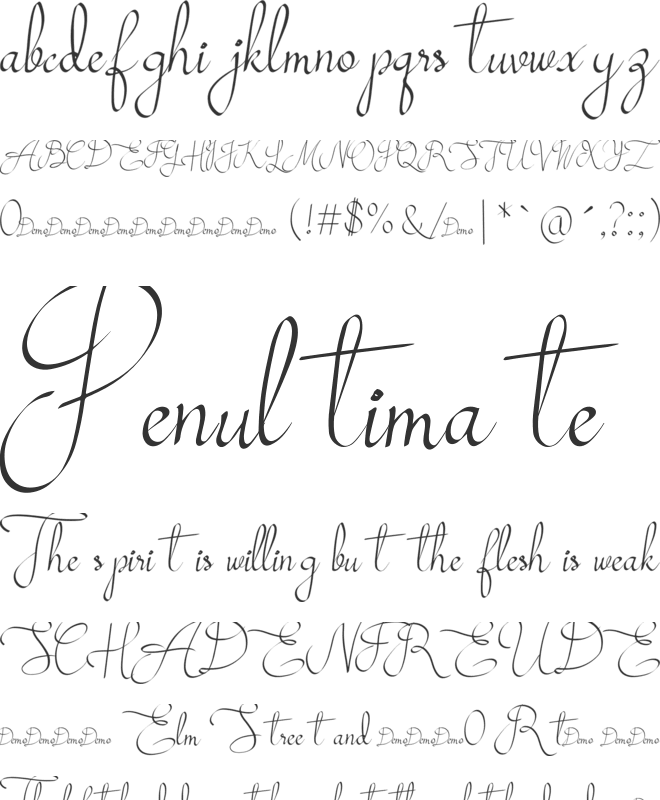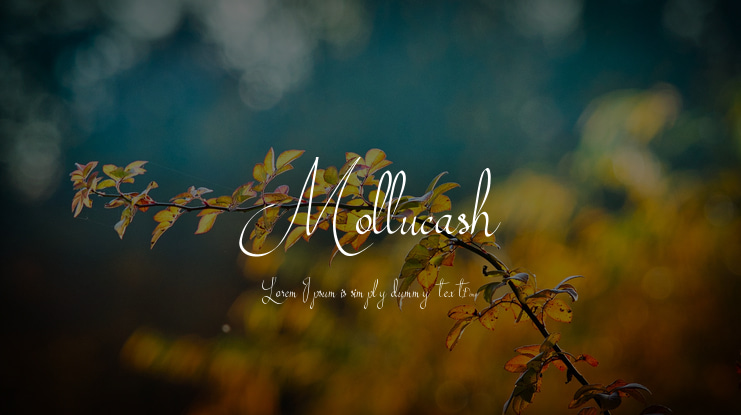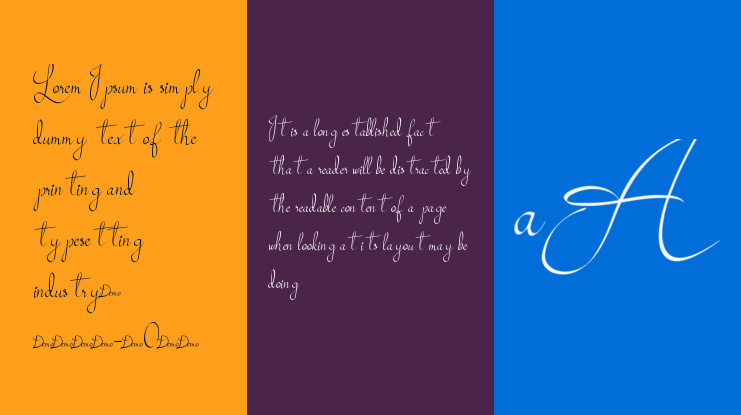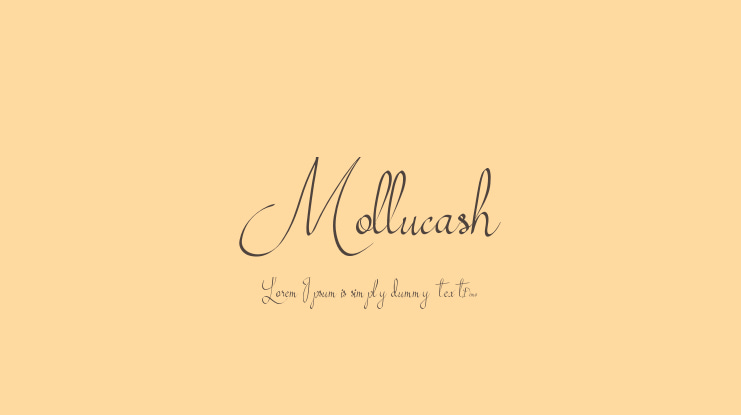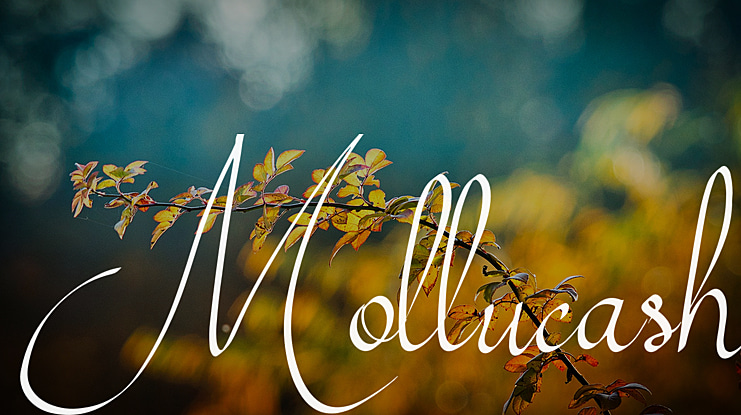
Mollucash Font
Mollucash is a calligraphy typeface (hand drawn) It is perfect for branding, wedding invites and cards, fashion and creative quotes. Mollucash includes full set of beautiful uppercase and lowercase letters, numerals, a large range of punctuation and ligatures and stylistic alternates, giving realistic hand-lettered style. ​​​​​​​ You will get: Mollucash OTF Mollucash TTF Mollucash WOFF